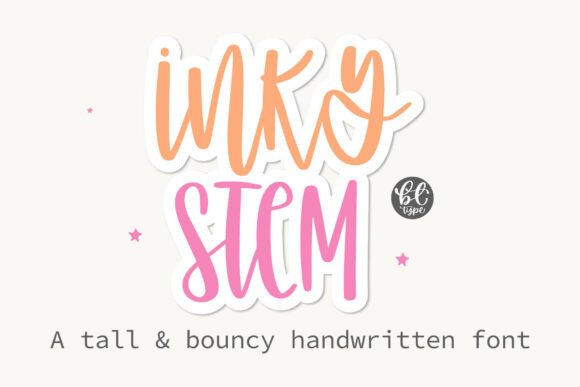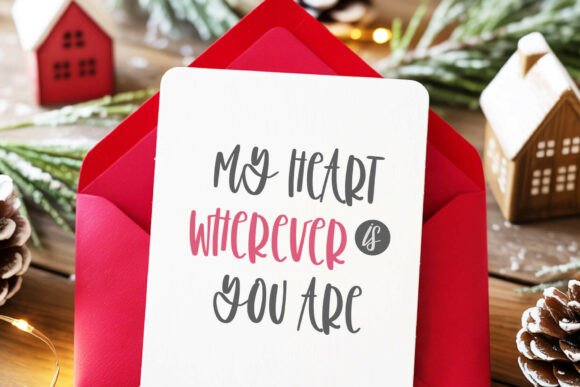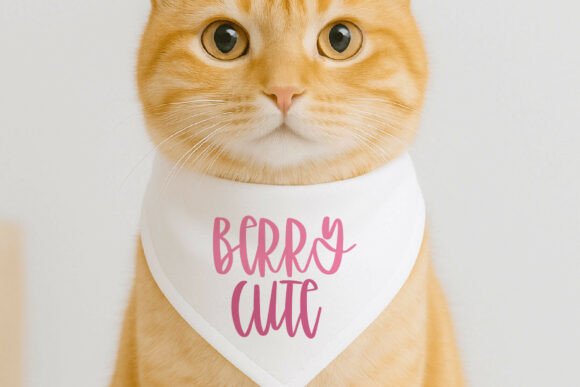
Inkystem Font
💛 Inky Stem is a tall and bouncy handwritten font that radiates playful energy and quirky charm through its elongated strokes and lively rhythm. Its letterforms dance with a natural bounce, giving words a dynamic flow that feels casual yet stylish. The mix of smooth curves and expressive angles makes it versatile for both uppercase and lowercase, offering endless possibilities for creative combinations.
Perfect for branding, social media graphics, greeting cards, posters, or DIY projects, Inky Stem font captures attention with its fun-loving personality while maintaining clear readability. This font is a delightful choice for designers who want to infuse their work with joy, spontaneity, and a fresh modern edge.